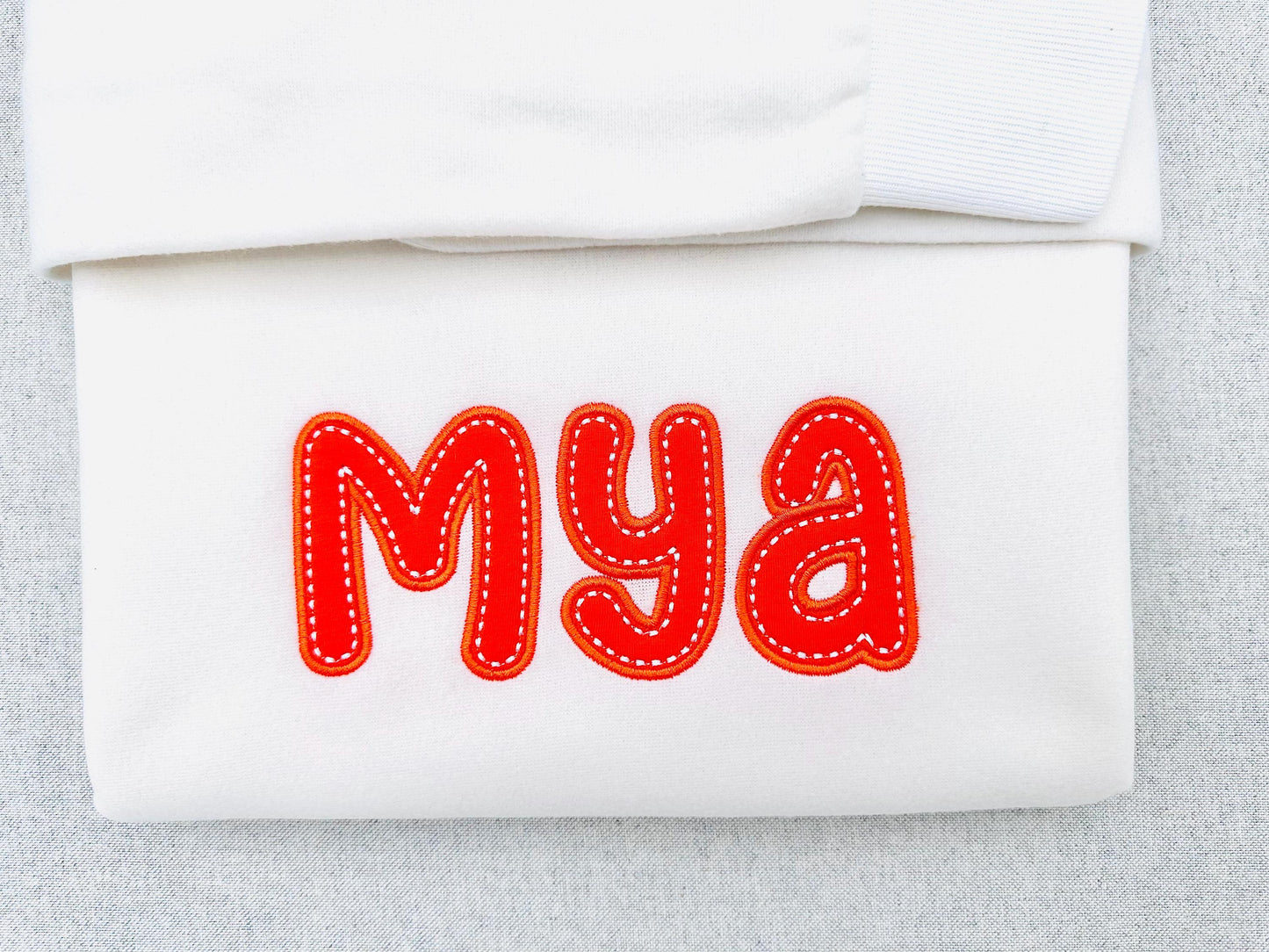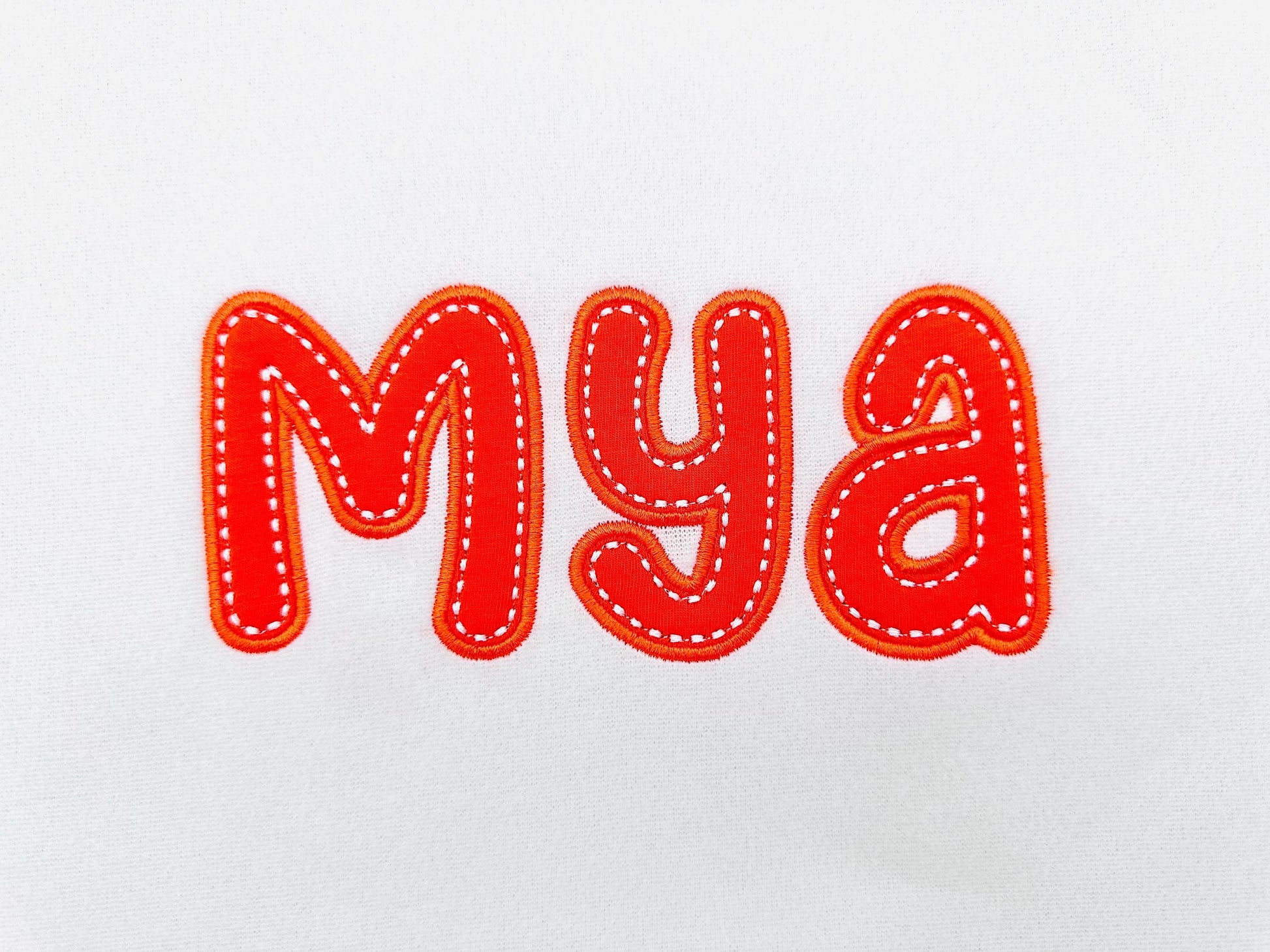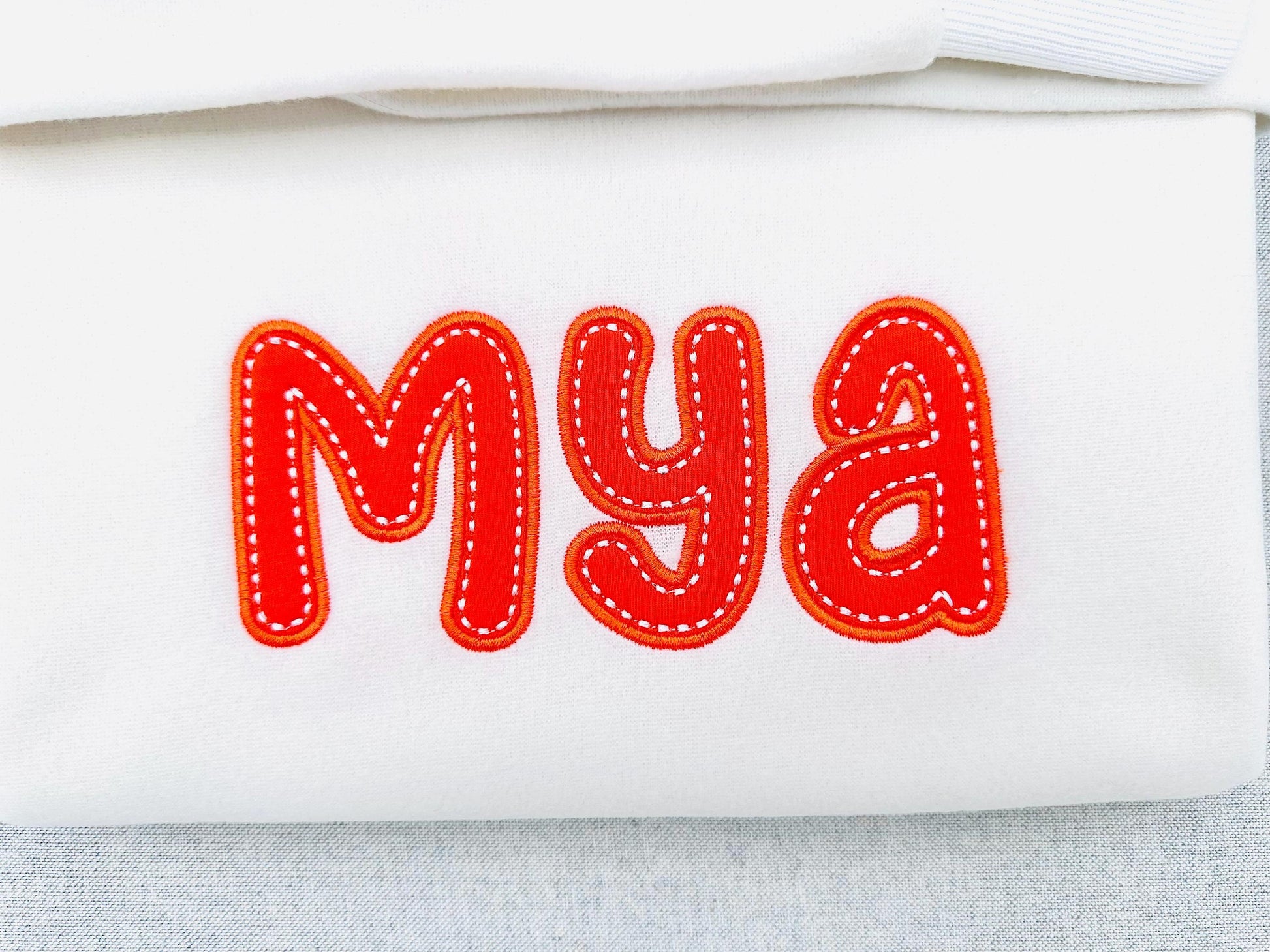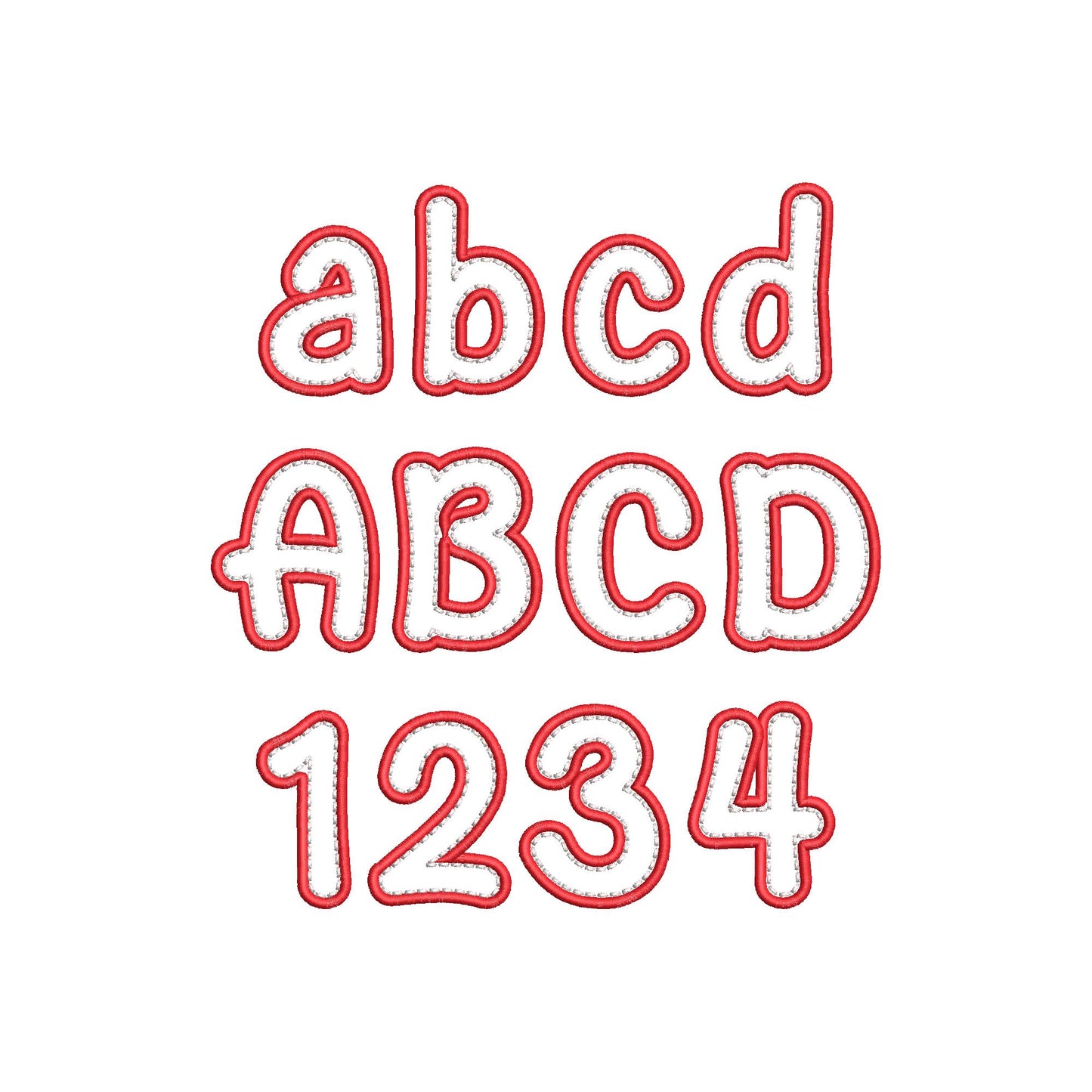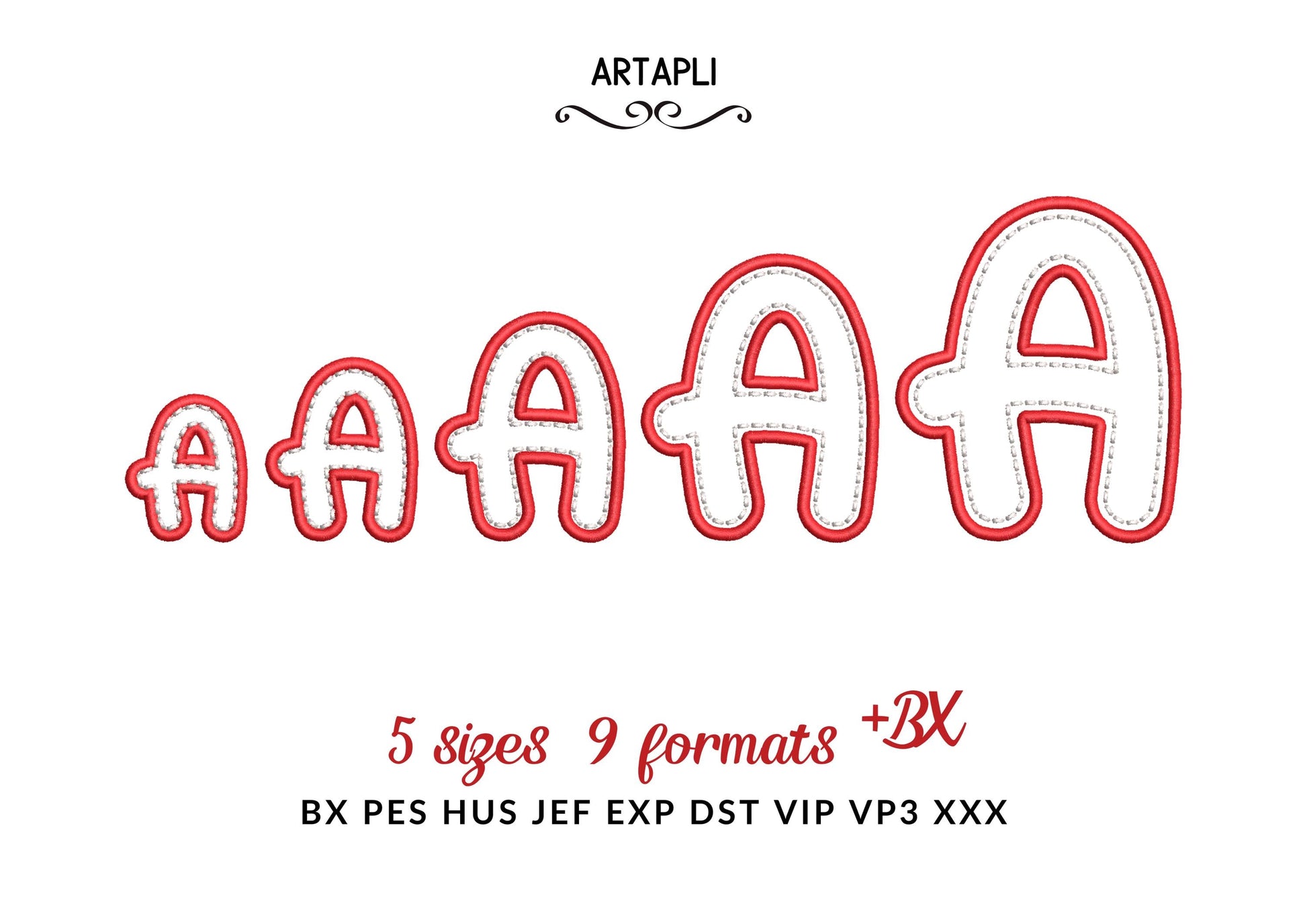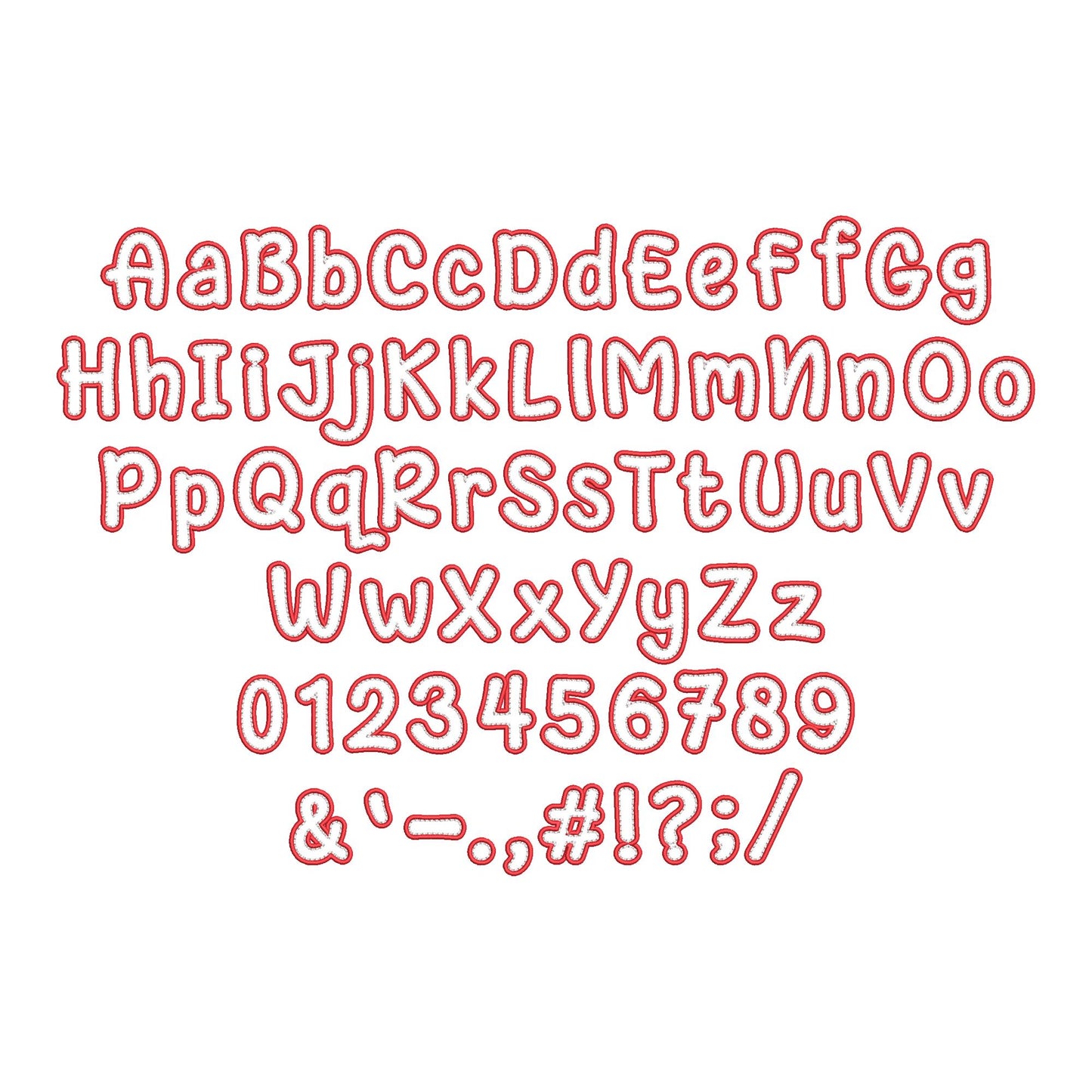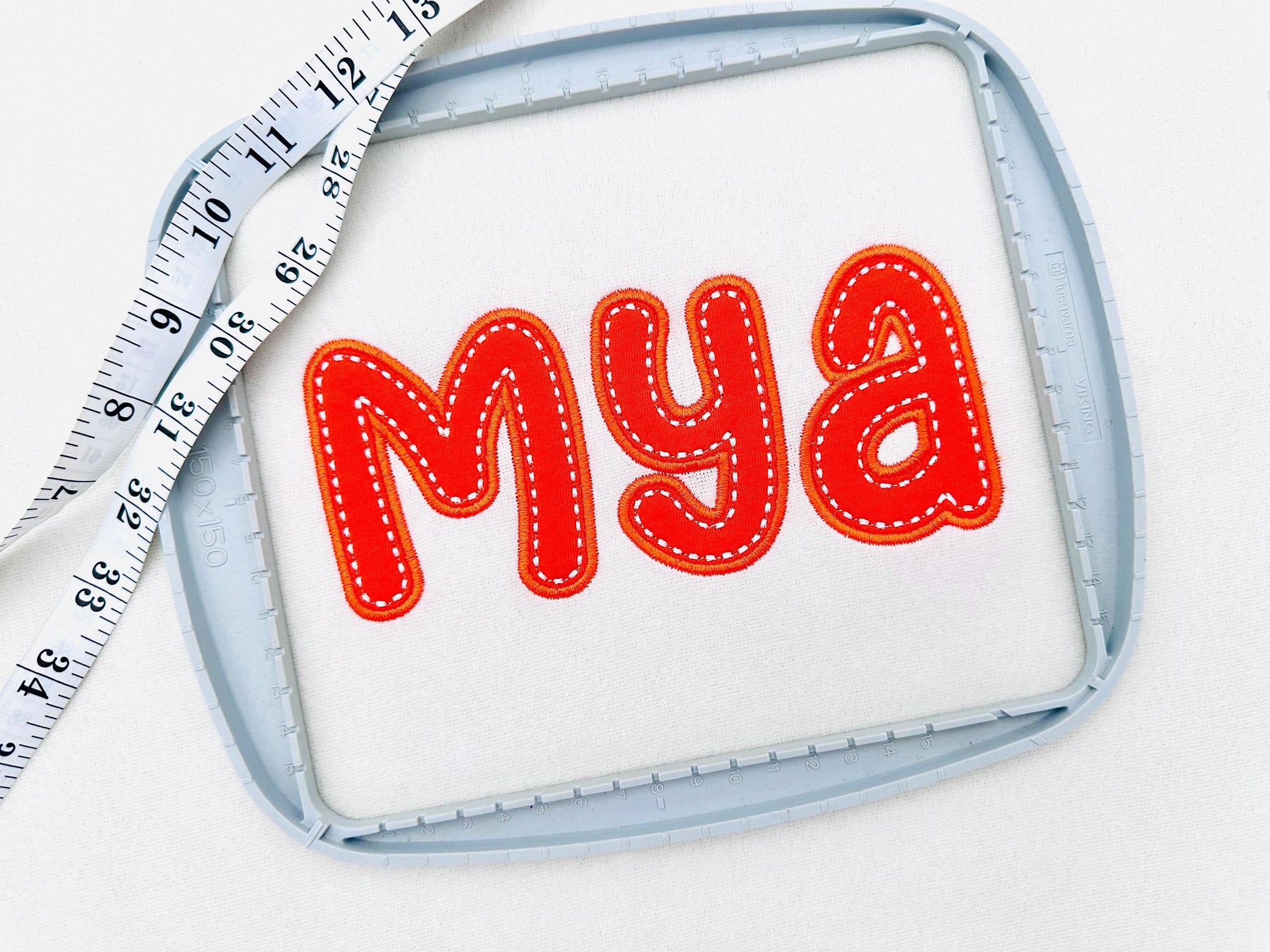
Or click to open the linkA girly applique font with a wide satin outline and a hand-stitch outline for a handmade look. Lovely for names and monograms on girls clothes, pillows, blankets and bags.
The letters come in five sizes: 1.9, 2.3, 2.9, 3.7 and 4.4 inches. Includes uppercase and lowercase letters, numbers 0-9 and punctuation.